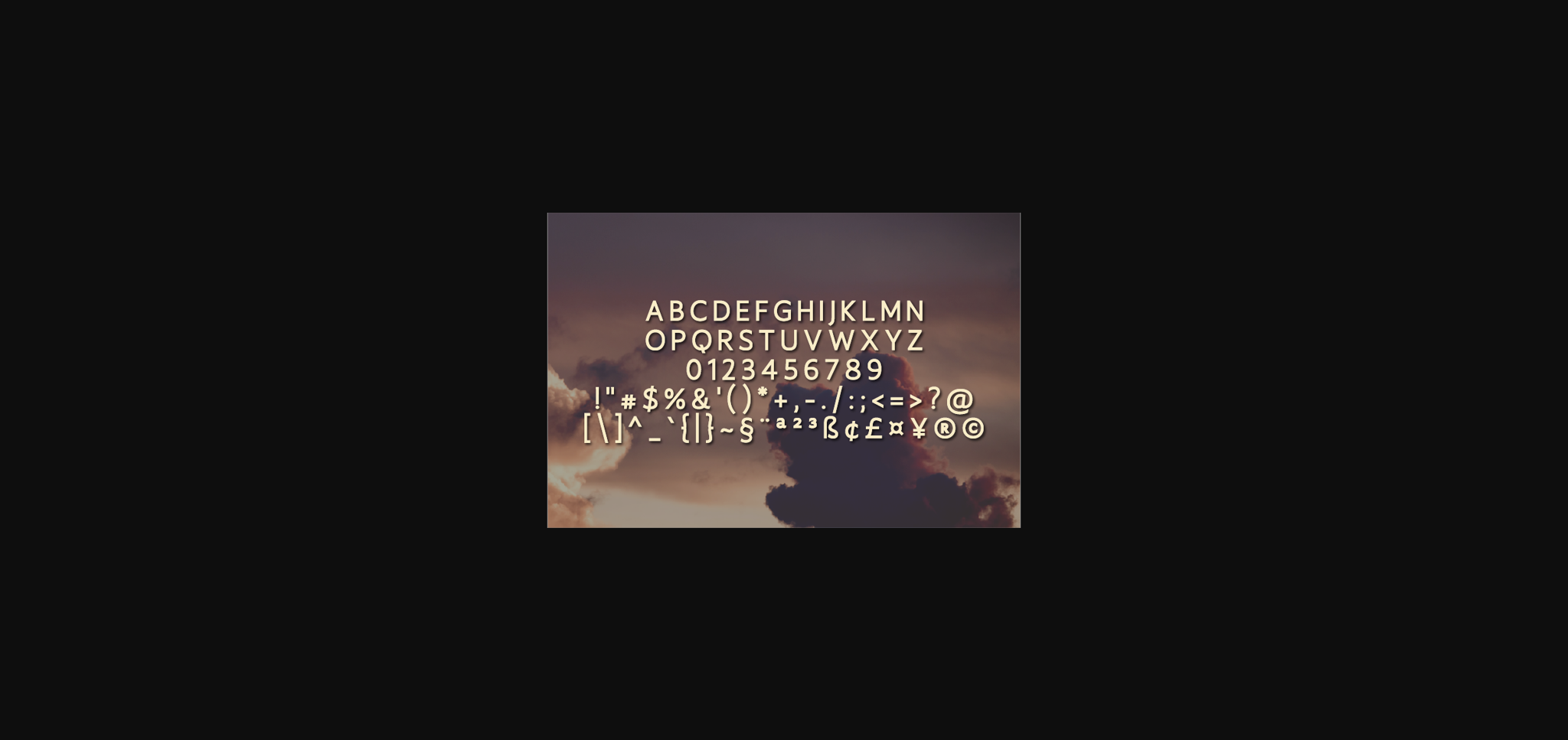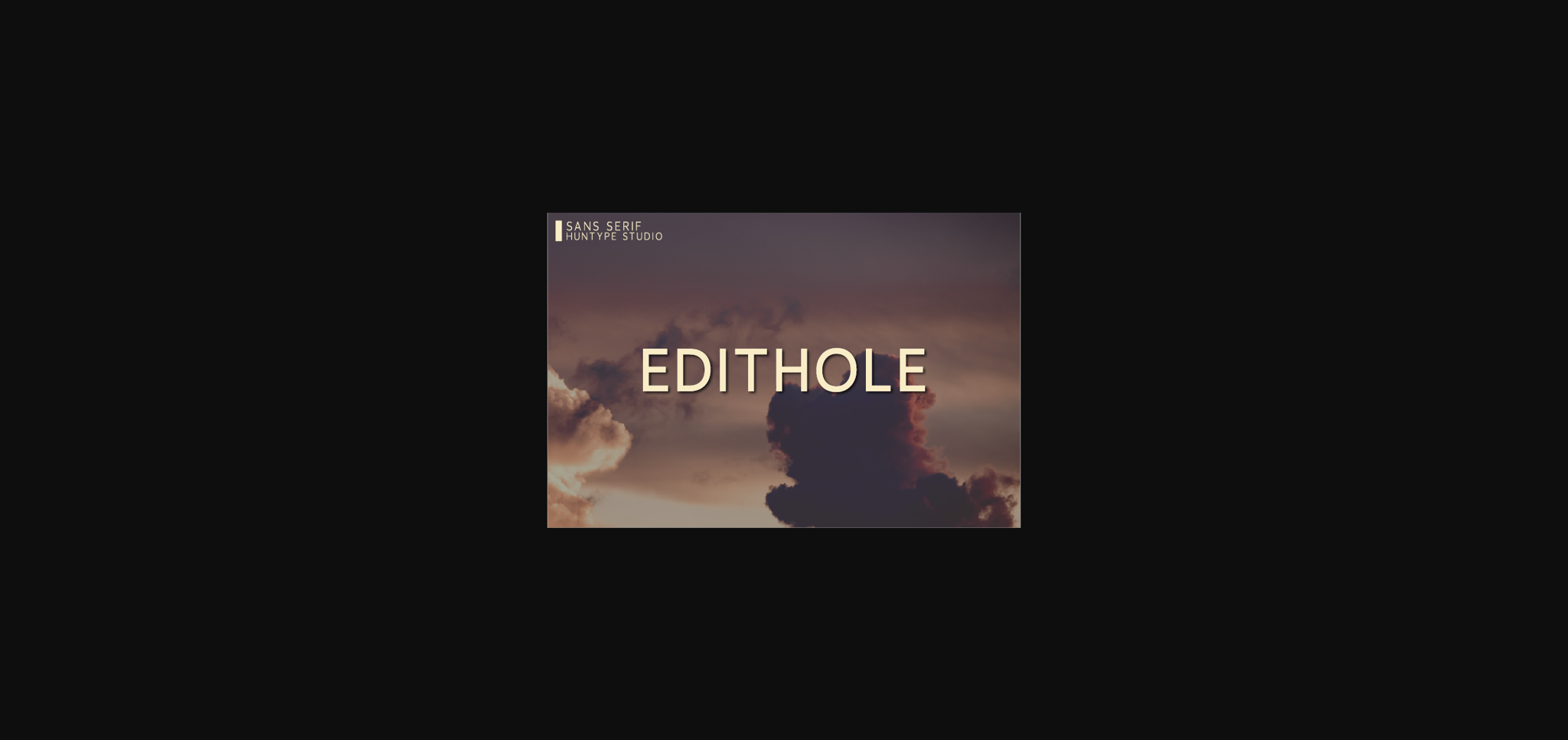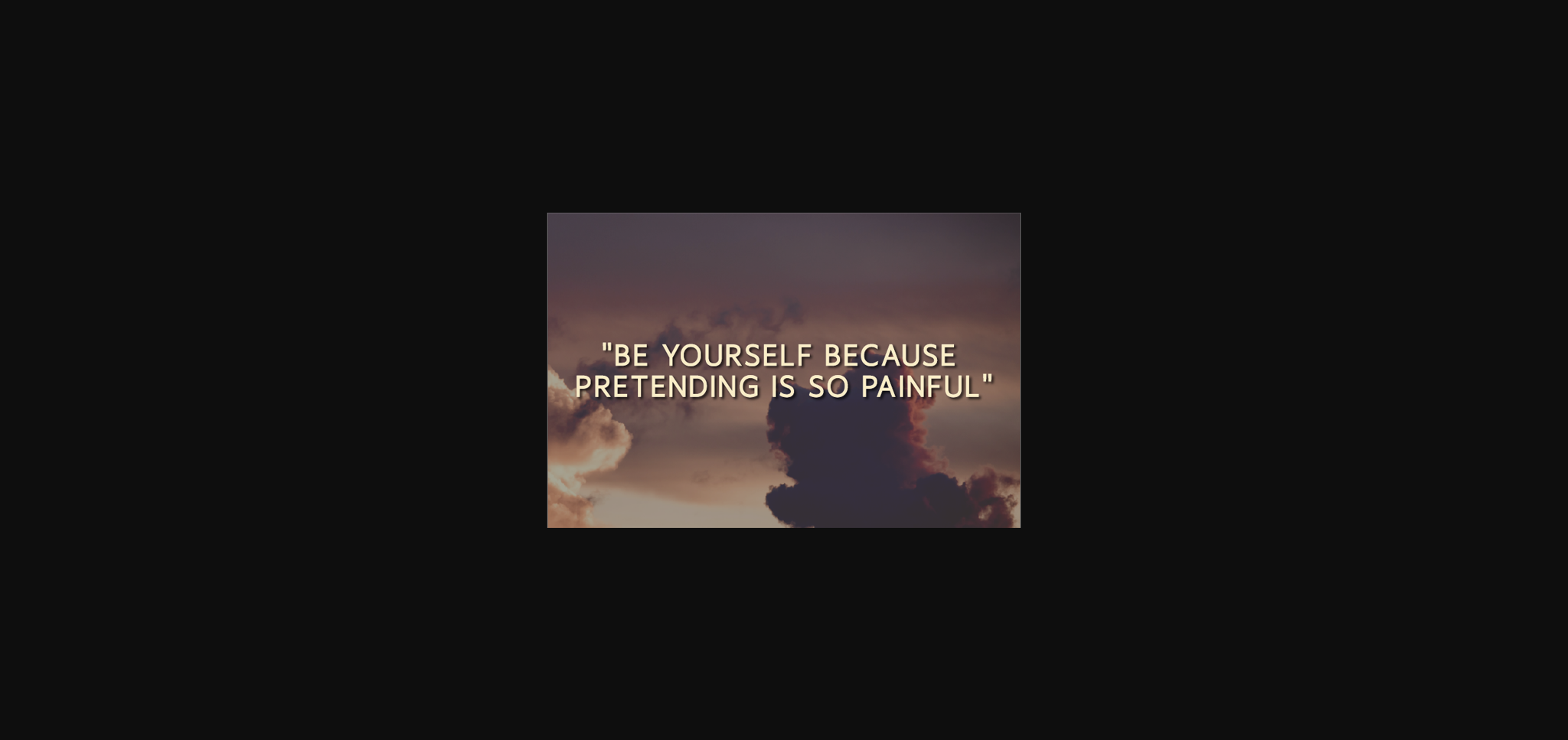
HomeSans Serif FontsEdithole Font Sans Serif Fonts Edithole Font FacebookXPinterestWhatsApp 1 of 5 ... Edithole Font Poster 2... Edithole Font Poster 3... Edithole Font Poster 4... Edithole Font Poster 5... About Edithole Font Edithole is a minimal and clean sans serif font. Suitable to a wide variety of designs due to its neat and simple style, this font has the potential to become your favorite go-to font, no matter the occasion! DOWNLOAD NOW People also explored Valentina Fiolete Font Dharma Gothic Rounded Ressison Font Oopsie Duo Font Retter Font Strongbox Font Salma Font Story Ardila Font Bellenau Font 599 0 TagsEdithole Font Previous articleTurline FontNext articleDalonce Font LEAVE A REPLY Cancel reply Comment: Please enter your comment! Name:* Please enter your name here Email:* You have entered an incorrect email address! Please enter your email address here Website: Save my name, email, and website in this browser for the next time I comment. Personal Use Free Aliqa Personal Use Free Read more about this font I Am Exceptional Personal Use Free Read more about this font Valentine Chips Personal Use Free Read more about this font Adelaide Personal Use Free Read more about this font BLOG How to Install and Use Fonts on Windows, macOS, and Web Projects How to Install and Use Fonts on Windows, macOS, and Web Projects Fonts are a crucial part of design and branding. Whether you’re designing a... Modern Sans-Serif Fonts That Brands Love in 2025 Transform Your Website: Elevate Your Typography with 7 Best Web Font Generators Exploring Font Trends